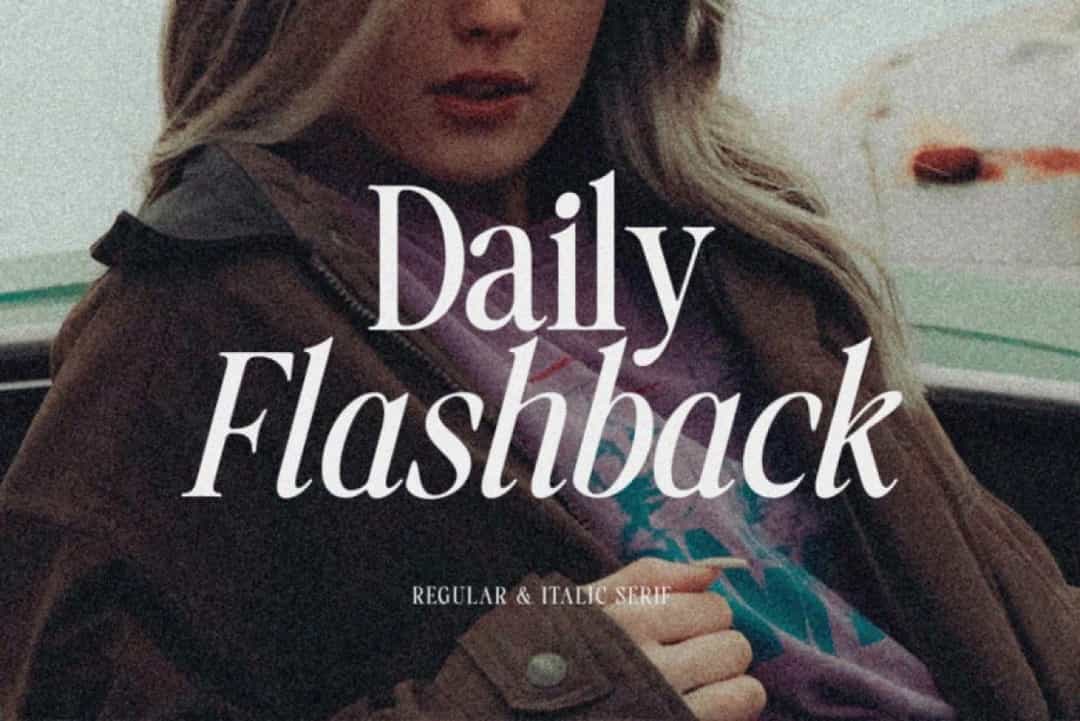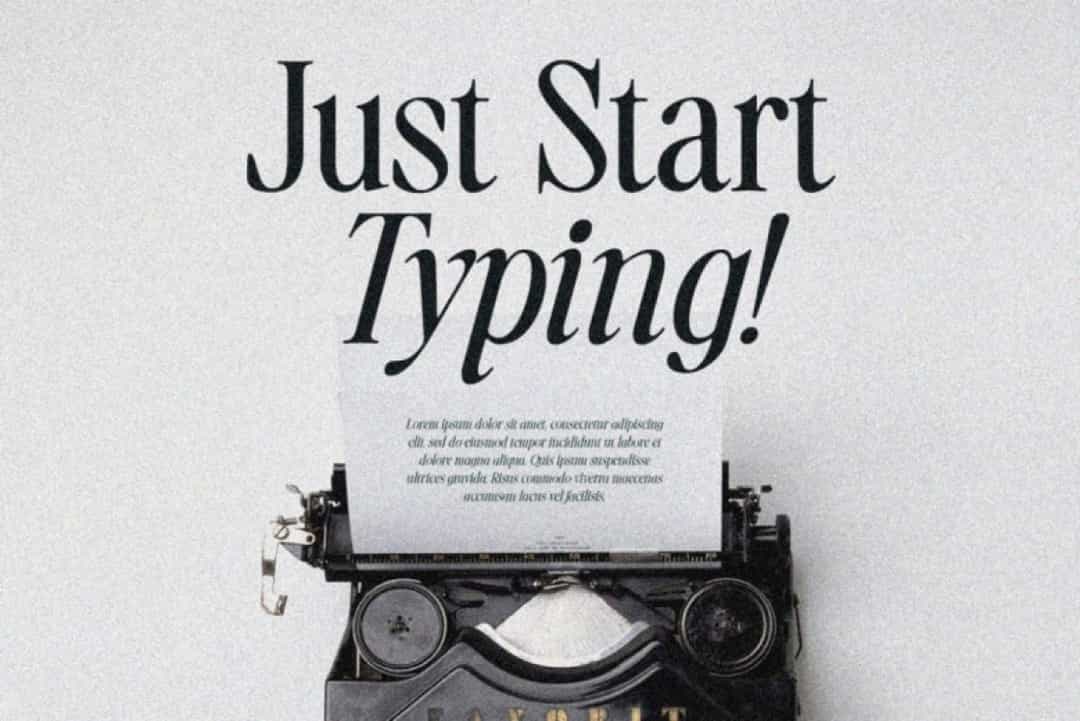
Daily Flashback is an elegant serif font designed for formal usage such as invitations labels magazines logos greeting cards wedding or wedding card packaging fashion cosmetics stationery labels novels or any other advertising function.